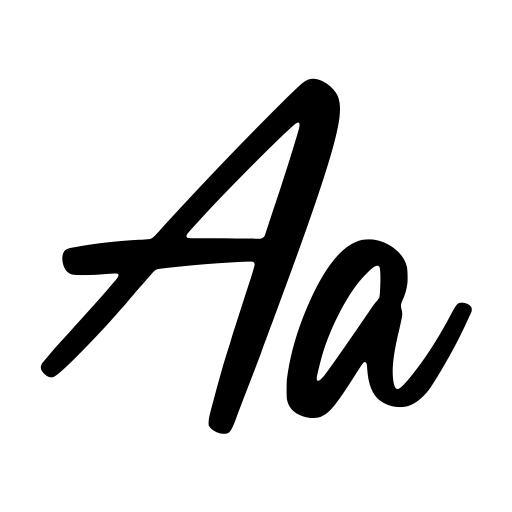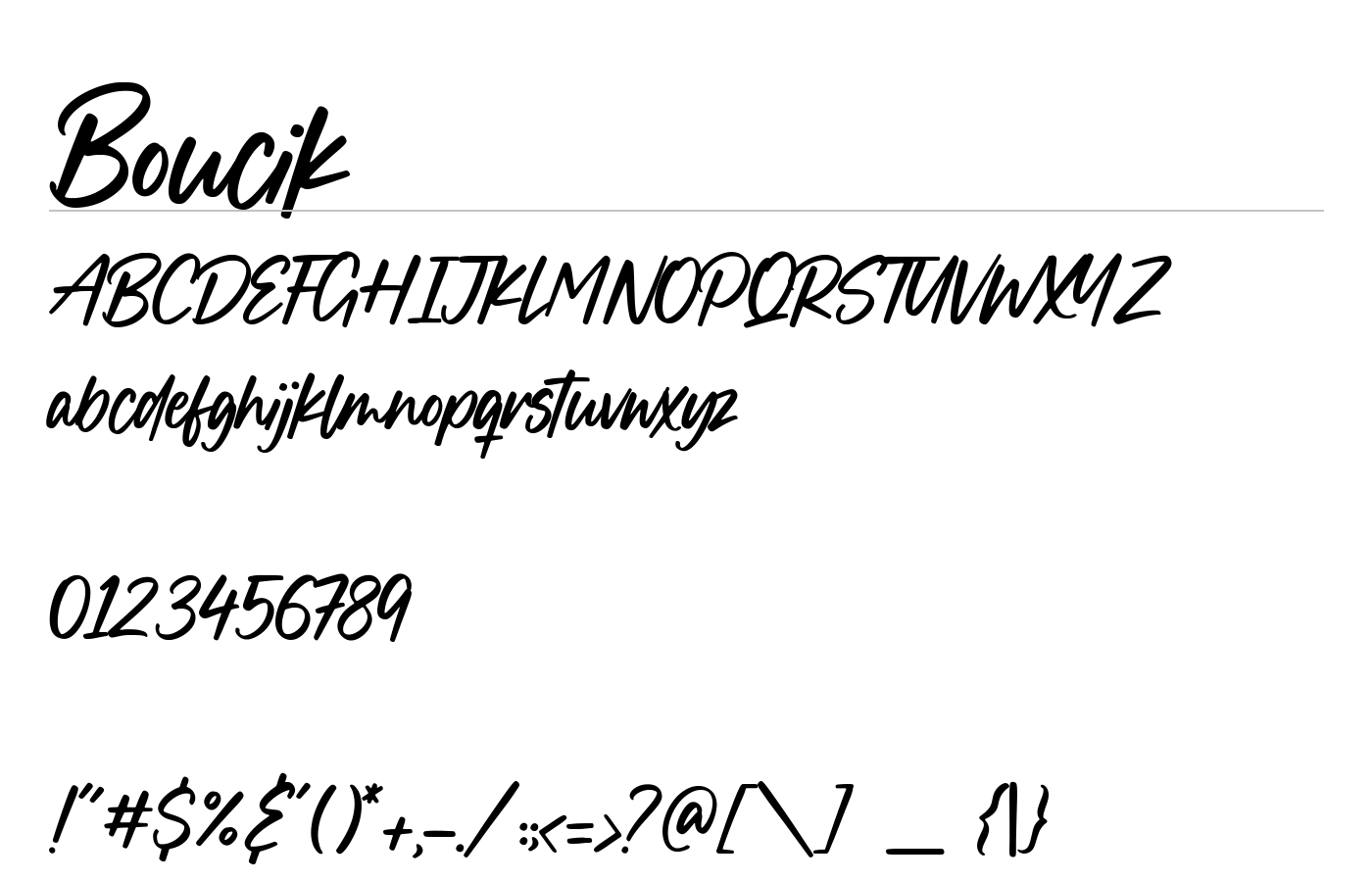
Boucik is a lively and modern script font with a casual handwritten feel, featuring smooth, flowing strokes and a slightly italicized angle that adds dynamic movement. Its clean, rounded letterforms and consistent weight make it both approachable and stylish, perfect for creative branding, invitations, and informal headlines where personality and warmth are desired. This font works beautifully in designs that seek an energetic yet friendly tone without sacrificing readability.
Boucik Font